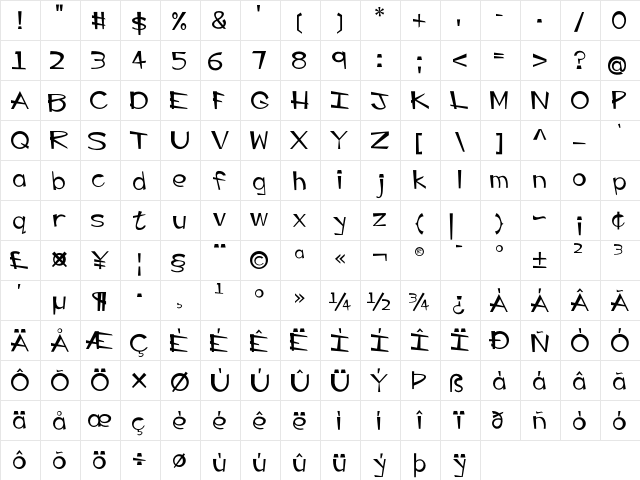
EP Big Guy Regular
Design Context for EP Big Guy Typeface
EP Big Guy is a composed and adaptable typeface that performs quietly and consistently across a wide range of design contexts.